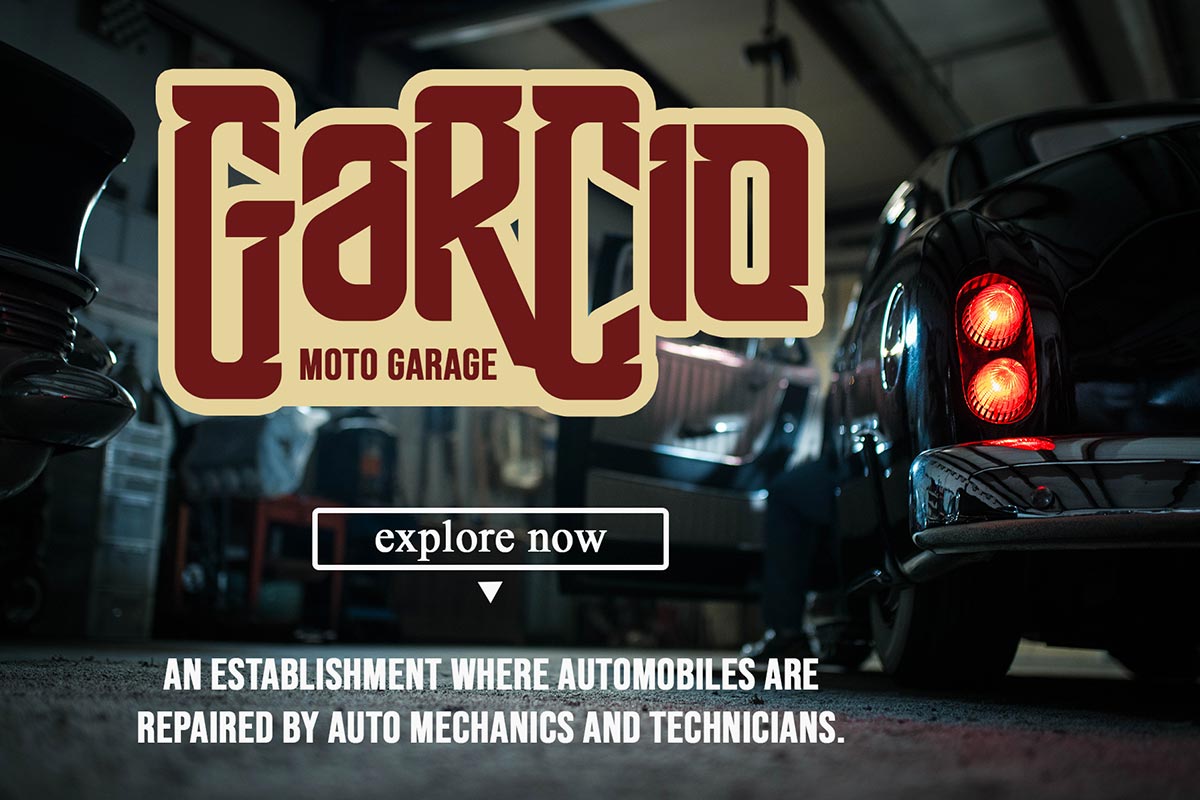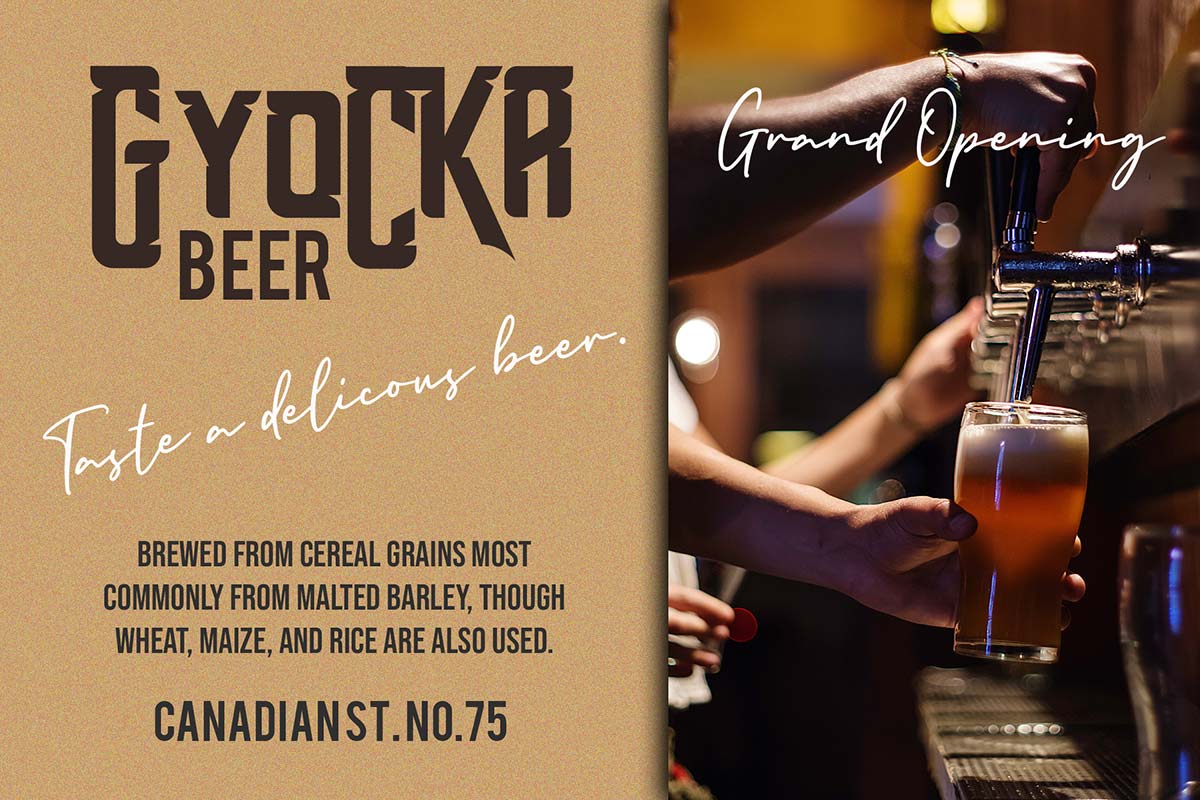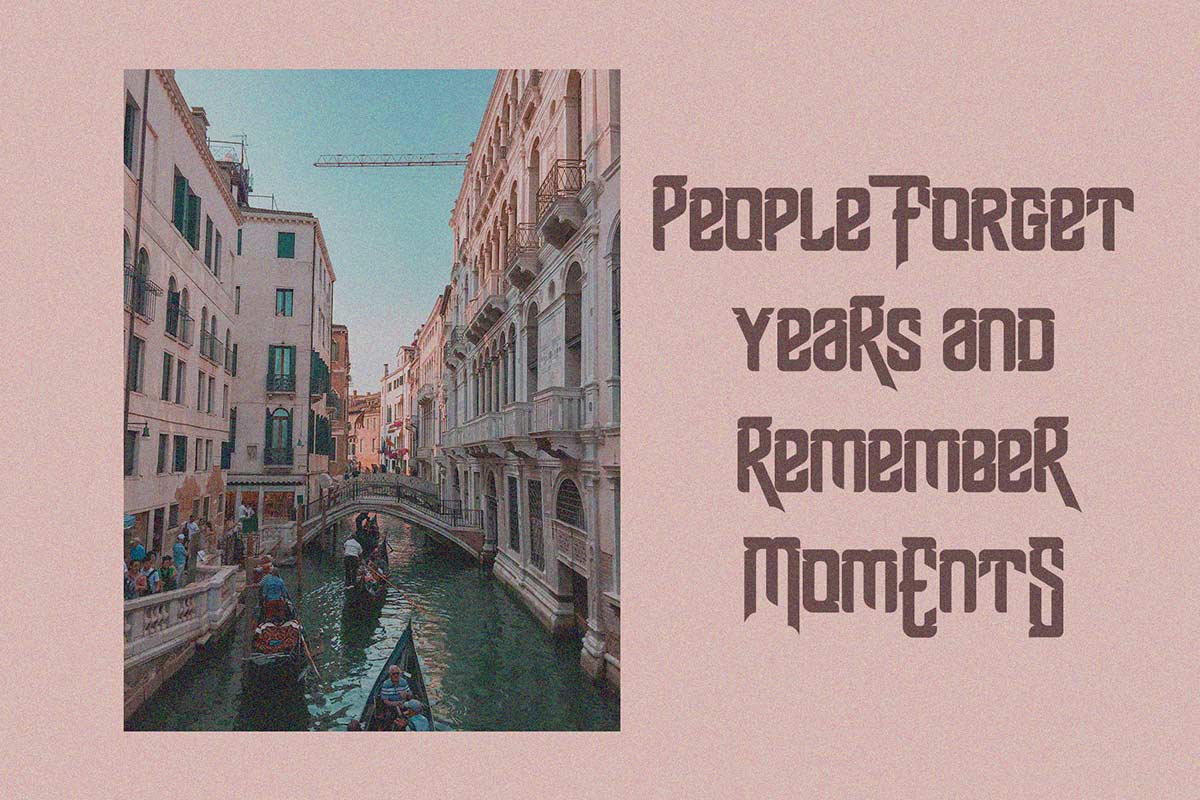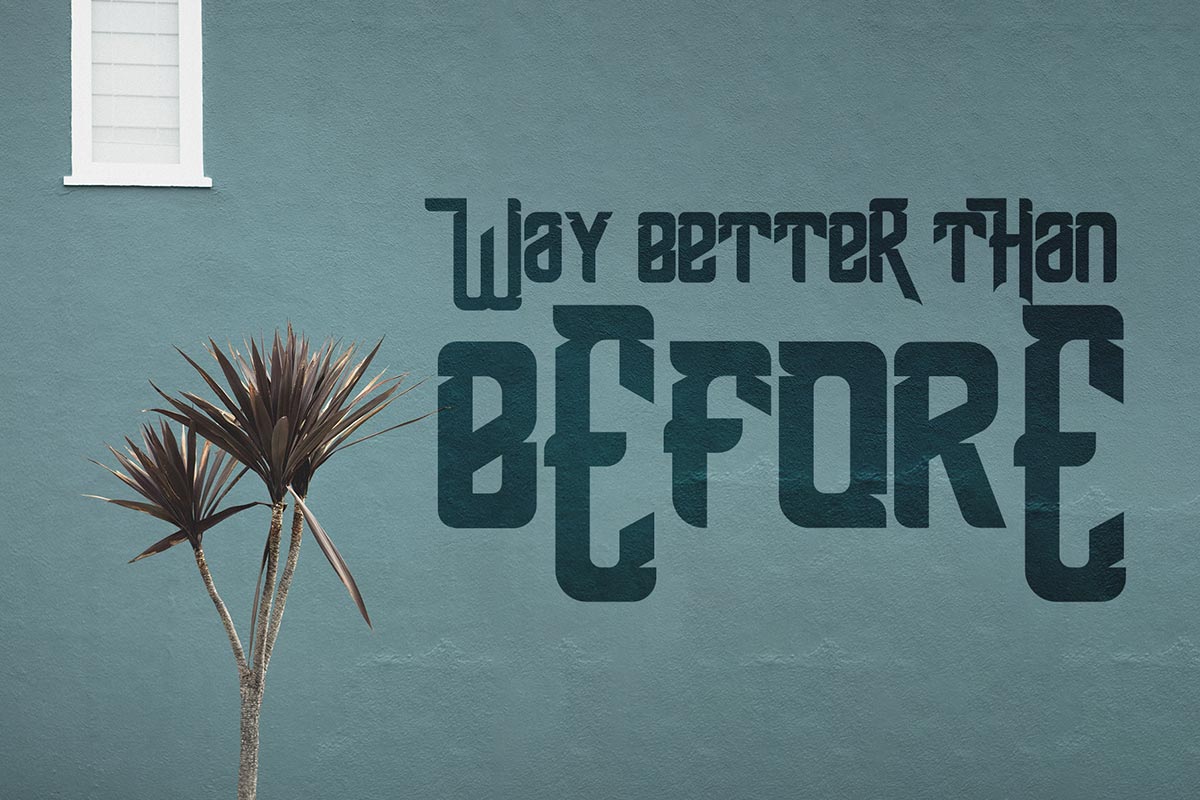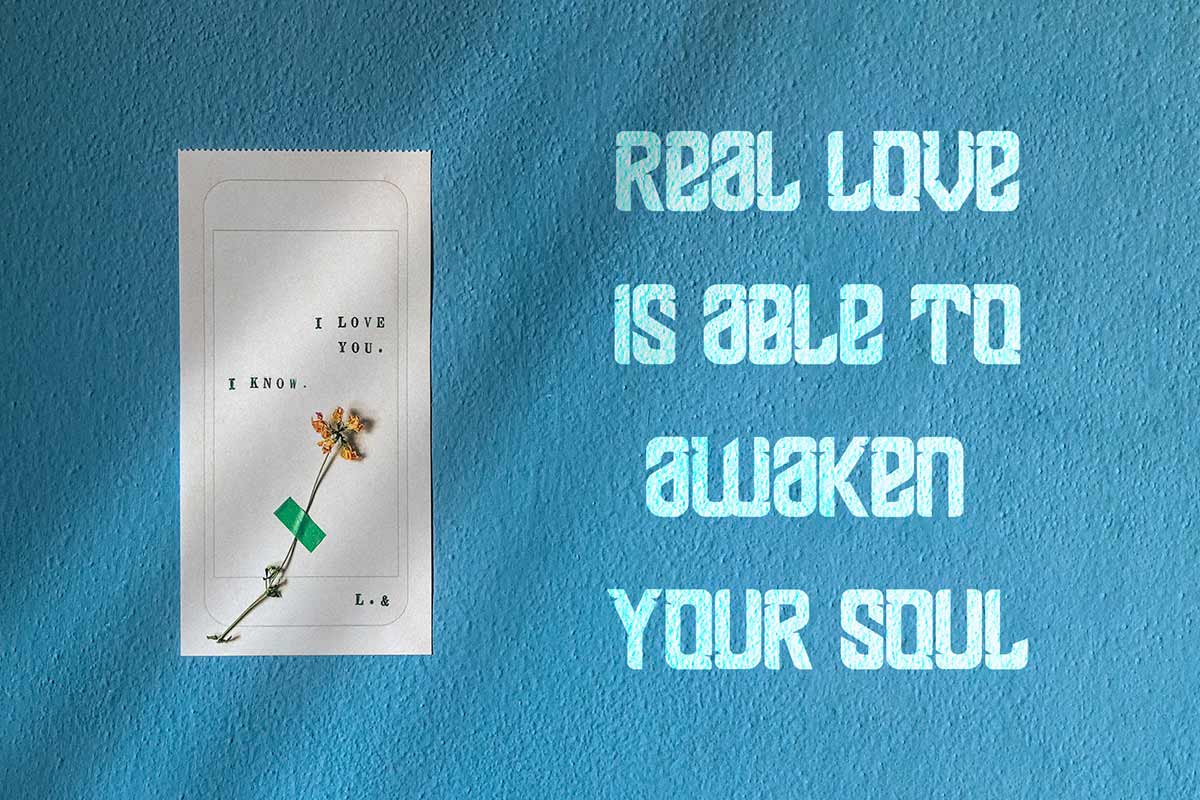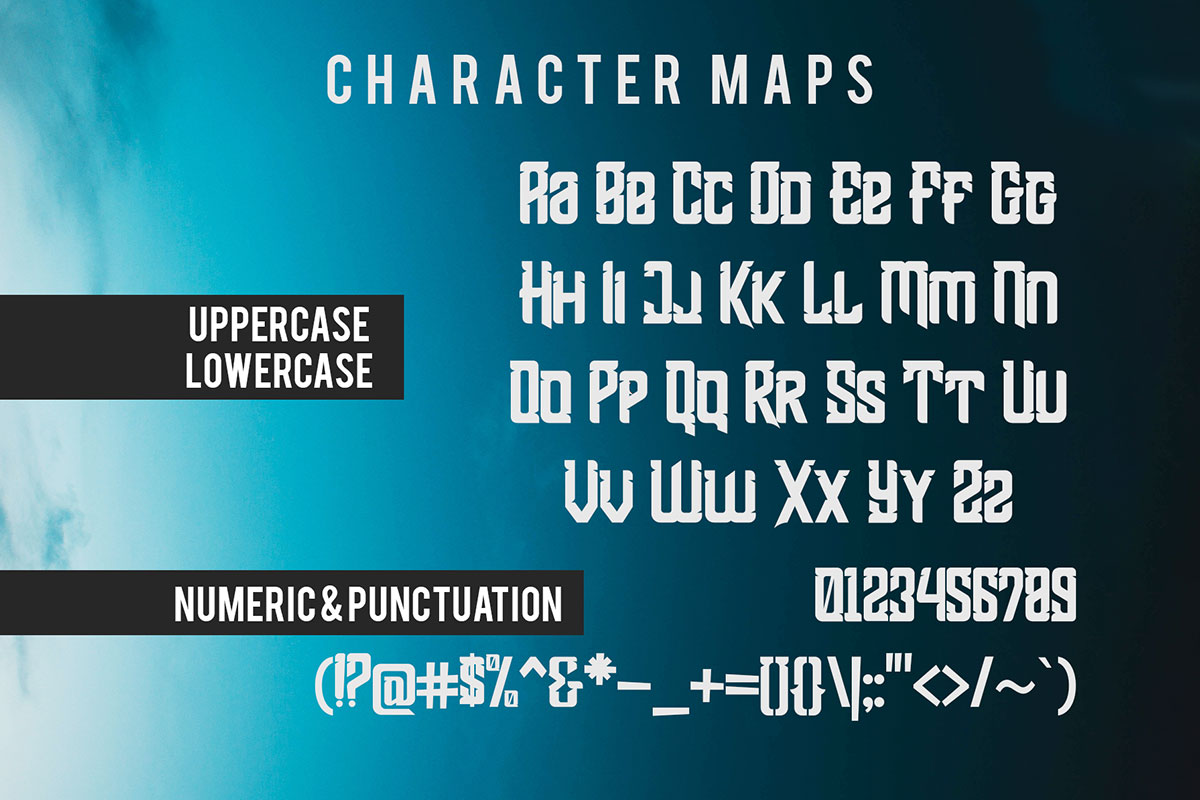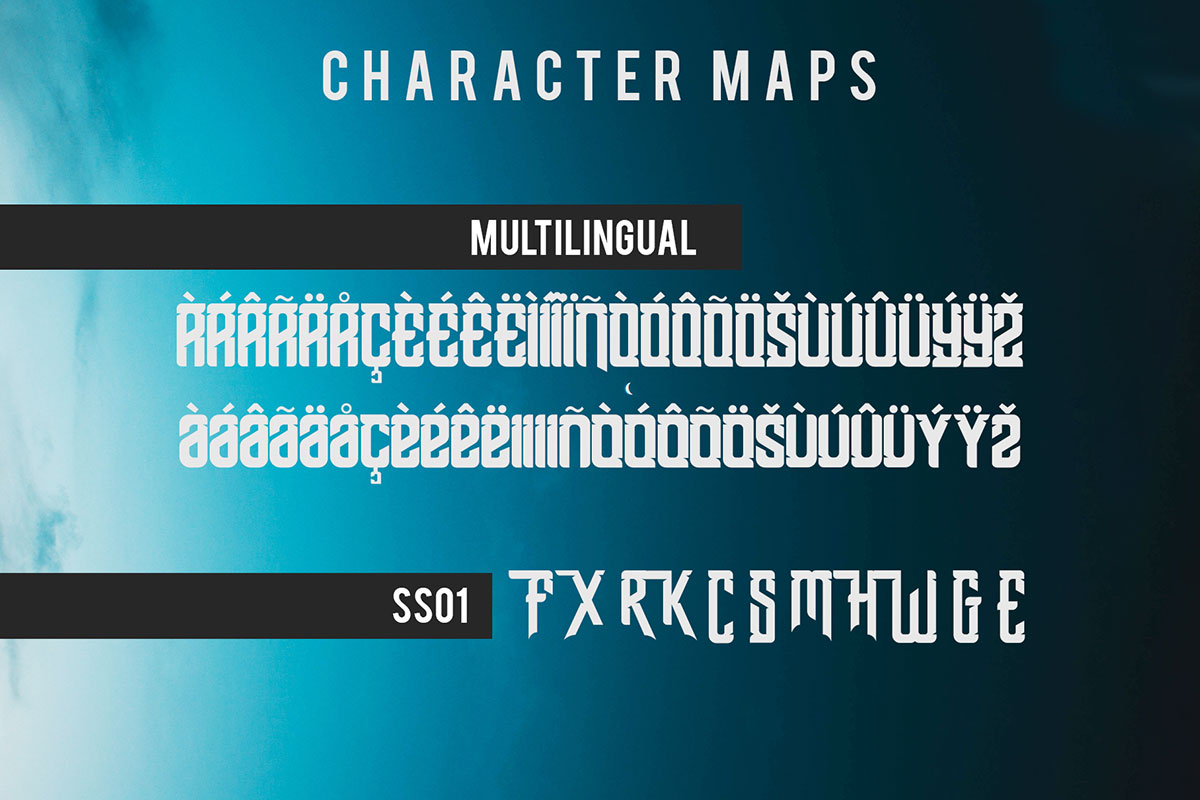
Shean Holmes Font Shean Holmes Modern Decorative Font is one of our Display fonts. If you want a legible and easy-to-use decorative font, you should consider picking up Shean Holmes Modern Decorative Font for your project. This font is a clean and modern-looking font with a very minimalistic style. It is a readable typeface that you can use for many things as a digital font and a print font, such as writing on a blog, magazine, or book cover. Shean Holmes Modern Decorative Font makes an impression of simplicity and modernity when you see it. There is no need to doubt how this font is compatible with various social media platforms. Our Display font collection is best for use as Figma fonts, Canva fonts, Freepik Fonts, and Adobe Fonts. They also work as Windows Fonts and Apple Fonts. For your social media needs, you can use and install fonts in our collection of Sans Serif fonts to use as Instagram Fonts, Facebook Fonts, and Twitter Fonts.